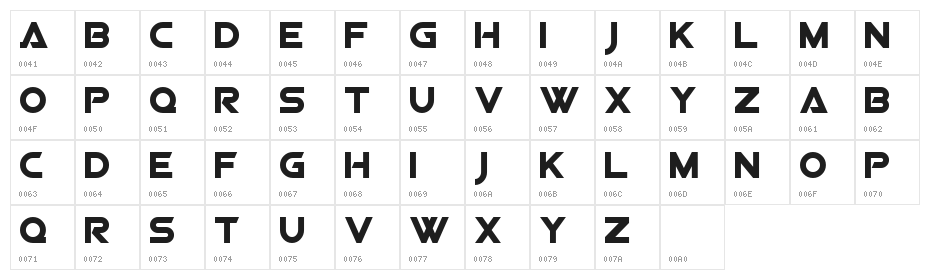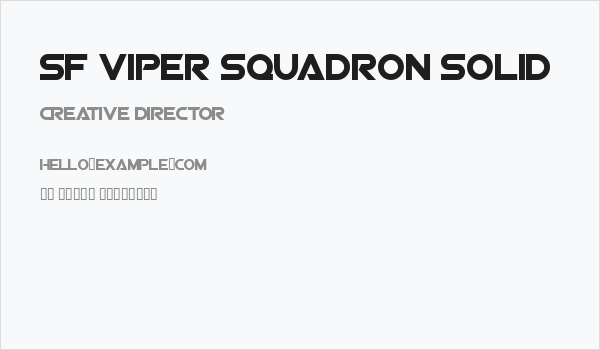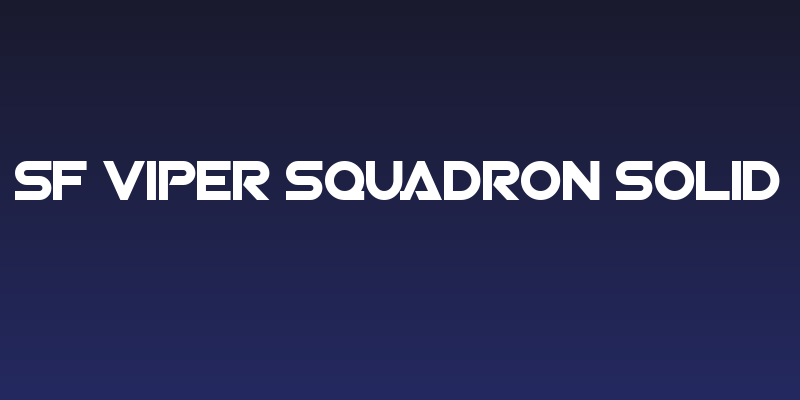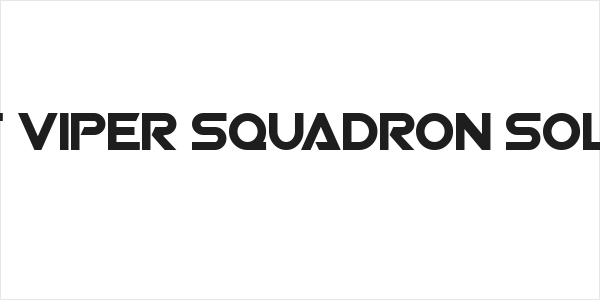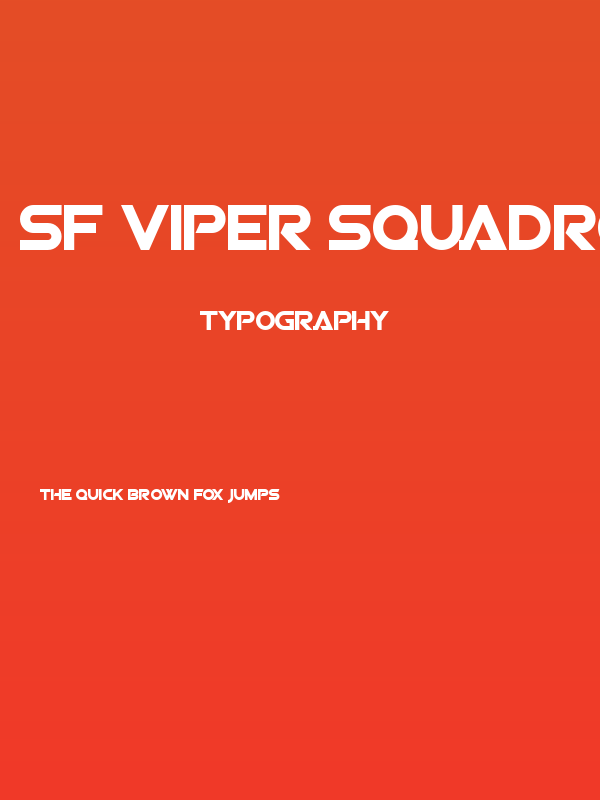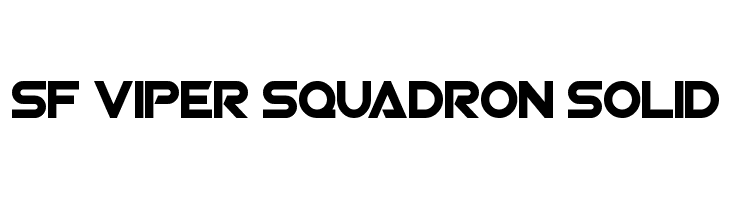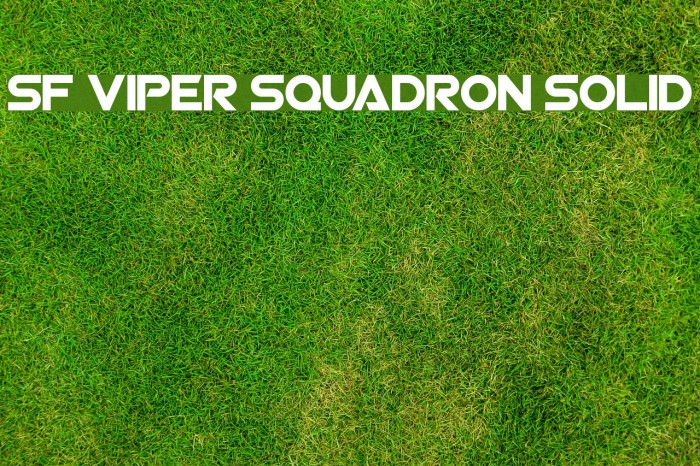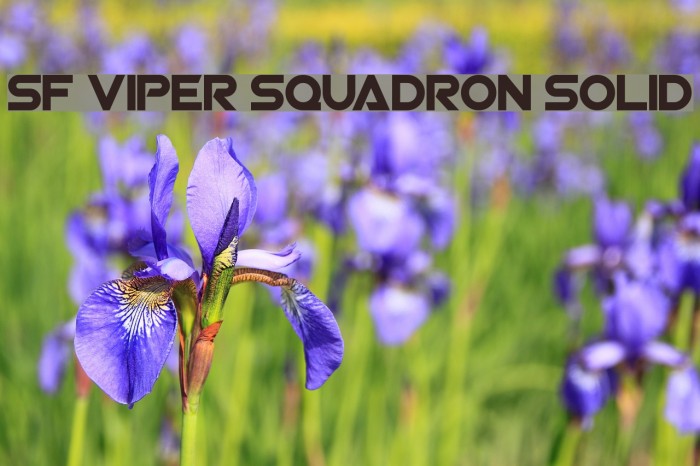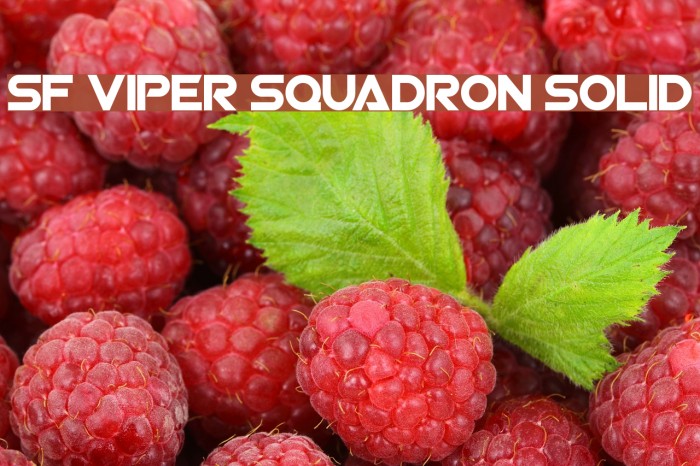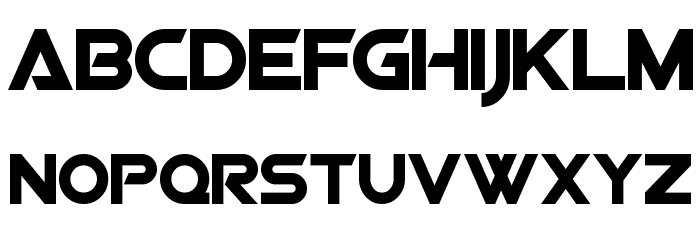
SF Viper Squadron Solid Font
SF Viper Squadron Solid Description
This font features a bold and futuristic design with sharp, angular edges and a solid, block-like appearance. The characters are uniformly wide, giving a sense of strength and stability. The uppercase letters are particularly striking, with a geometric style that suggests a modern, tech-inspired aesthetic. The font lacks lowercase letters and numerals, focusing instead on a strong uppercase presence. The overall look is clean and assertive, making it ideal for projects that require a bold statement.
| Proposed Projects | Ideal for sci-fi themed designs, technology branding, video game titles, and futuristic posters. |